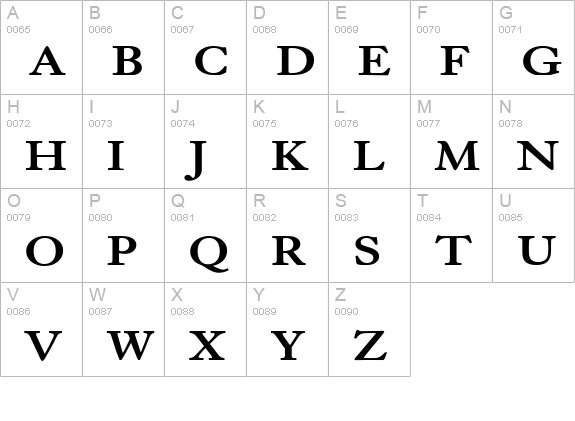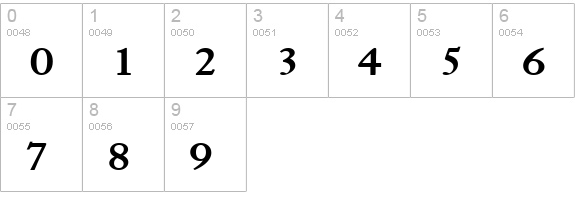
Bliss Wide Bold is a strong, high-contrast, extended-width variant in the Bliss typeface family \xE2\x80\x94 well suited to headlines, attention-grabbing titles, and strong calls-to-action.
Bliss Wide Bold is a striking and modern typeface that exudes confidence and sophistication. With its wide letterforms and bold strokes, this font is perfect for making a statement in headlines, posters, and branding materials. The clean lines and strong presence of Bliss Wide Bold make it a versatile choice for a wide range of design projects. And the best part? Bliss Wide Bold is available for free download at FontsMarket.com. Whether you're a designer looking to add a bold touch to your creations or a business owner in need of a powerful font for your marketing materials, Bliss Wide Bold has got you covered. Download it today and elevate your designs with this eye-catching typeface.